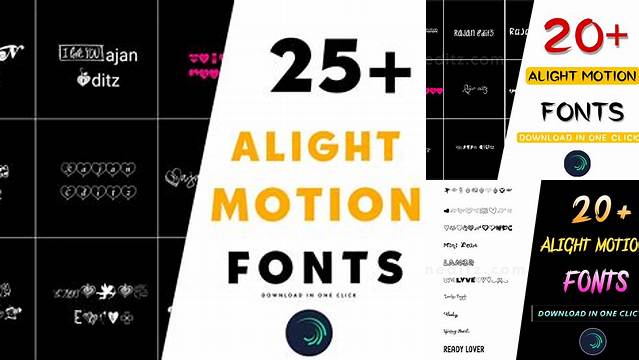
Get Amazing Fonts For Alight Motion: Free Download!
Hey guys! Are you ready to level up your Alight Motion game? If you're looking to inject some serious style into your video projects, then you've landed in the right place. Today, we're diving deep into the awesome world of font packs and, specifically, how to get a font pack free download to supercharge your Alight Motion creations. Forget those boring default fonts, because we're about to unlock a treasure trove of typography that will make your videos pop! Whether you're a seasoned video editor or just starting out, adding custom fonts is a game-changer. It’s like giving your videos a fresh coat of paint, transforming them from something basic to something truly unique and eye-catching. Let’s get started!
The Power of Fonts in Alight Motion
Alright, first things first: why are fonts so important in Alight Motion? Well, think of your video as a story. Your visuals tell the story, yes, but your text? Your text is the narrator, the commentator, the voice that guides your audience. The right font can enhance the mood of your video, reinforce your message, and make your content more memorable. It’s all about creating a cohesive experience. Font packs provide a vast library of fonts, each with its own personality and style. From sleek and modern sans-serifs to elegant and classic serifs, you'll find fonts that perfectly match the tone and theme of your project. Imagine creating a cinematic intro with a bold, impactful font, or a fun, upbeat video with a playful, handwritten style font. The possibilities are endless!
Using the right font makes a difference. Selecting the ideal font can elevate the overall look and feel of the video. It will also allow you to communicate your ideas clearly and concisely. By choosing a font that is both readable and aesthetically pleasing, you ensure that your message is easily understood while also captivating your audience. A well-chosen font pack can make a video stand out from the crowd, creating a stronger impression on viewers. You can even improve your branding! Whether you're creating videos for personal projects or professional clients, the right typography can significantly improve the appeal and effectiveness of your content. So, what are you waiting for? Let's explore some fantastic font pack free download options!
Sometimes, things don't go as smoothly as we'd like. Let's talk about some common issues you might encounter when installing and using fonts in Alight Motion, and how to fix them. The first issue is that the font doesn't show up in Alight Motion. This is a common problem. The first thing to do is to double-check that the font file is in the correct format (.ttf or .otf). If it isn't, you might need to convert it using a font converter. Then, close and reopen Alight Motion, as mentioned earlier. If that doesn't work, try restarting your device. Sometimes, a simple restart can fix the problem. Another common issue is that the font appears but doesn't display correctly. This may be due to a corrupted font file. Try re-downloading the font from a different source. Another issue is the font rendering is not good. Make sure your Alight Motion app is updated to the latest version. Older versions might have compatibility issues with newer fonts. Always make sure that your fonts are compatible with your device and Alight Motion version. Check the licensing of your fonts to avoid any copyright issues. If you've downloaded a font that is only for personal use, you can't use it in commercial projects. Read the license agreement carefully. Always back up your font files! This will ensure that you won't have to redownload them in case of a device or app error.
Optimizing Fonts for Video Editing
So, you've got your fonts installed, but how do you use them effectively in your videos? Choosing the right font is essential, but so is how you use it. Think about readability first. Make sure your chosen font is easy to read, especially if you're using it in a moving video. Simple, clear fonts often work best for video text. Then comes the style: the font needs to match the overall aesthetic and style of your video. If it is a documentary, you might want a serious font. If it is a comedy video, try a fun font! Don't use too many different fonts in a single video. It can be distracting and make your video look unprofessional. Use a limited number of fonts, usually two or three, to create a consistent look. Remember about hierarchy! Use different font sizes, weights, and colors to create a visual hierarchy. This will guide your viewer’s eye and make your text easier to understand. Also, think about the background. Make sure the text contrasts well with the background. It’s important so that the text is easily readable. If your text is on a light background, use a darker font, and vice versa. Keep the text concise. Don't overload your video with text. Break up long blocks of text and use bullet points or shorter sentences for better readability. Be creative and experiment with text animations and effects. You can use Alight Motion’s built-in features to add animations. This adds visual interest and makes your text more engaging. With some practice, you can take your videos to the next level!
Staying Safe: Font Licensing and Legal Considerations
Let's get real for a sec, guys. Downloading fonts is awesome, but it’s really important to be aware of font licensing. When you download a font pack free download, you're not just getting the font; you're agreeing to certain terms and conditions set by the font designer. Pay close attention to the license agreement. Does it allow commercial use? Can you use it in videos you plan to monetize? Many free fonts are only licensed for personal use, so it's critical to ensure the license aligns with your intended use. Be super careful. If you use a font commercially without the proper license, you could face legal consequences. You could be fined, or even worse, have to remove your videos from public platforms. It is important to know your rights and responsibilities. There are some fonts that are completely free for both personal and commercial use, but it is not the norm. Make sure you do some research before using a font in your videos. Another thing to watch out for is font foundries. Some are very strict with their licensing, and others are very flexible. Always check the font foundry's website for the most up-to-date licensing information. Keep a record of the licenses for the fonts you use. This will help you if there are any questions about your use of a font. By respecting font licensing, you're not only protecting yourself but also supporting the designers who create these amazing fonts!